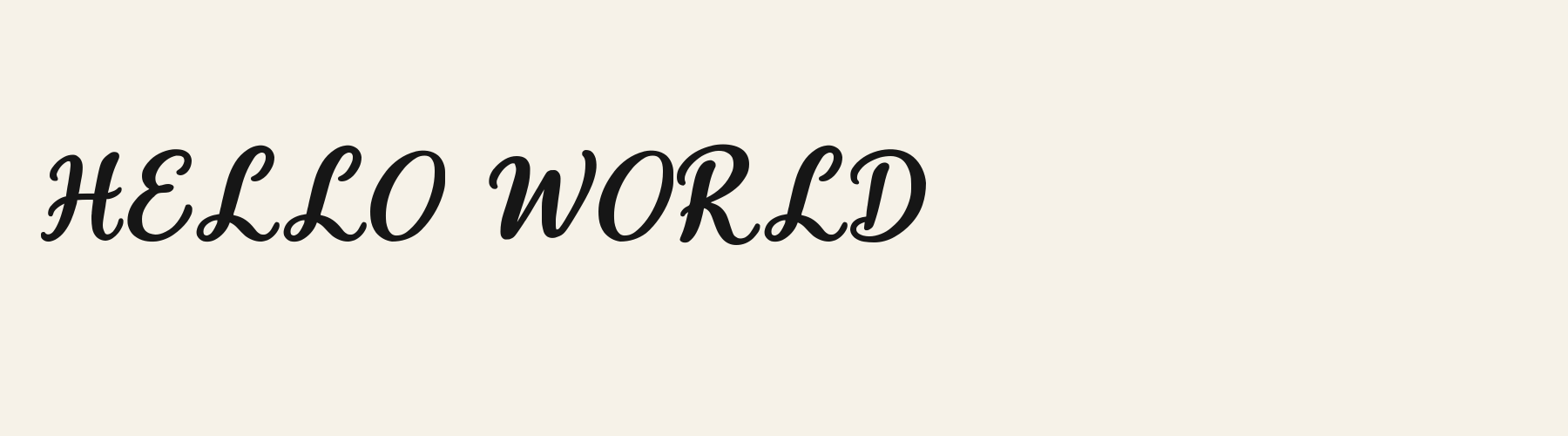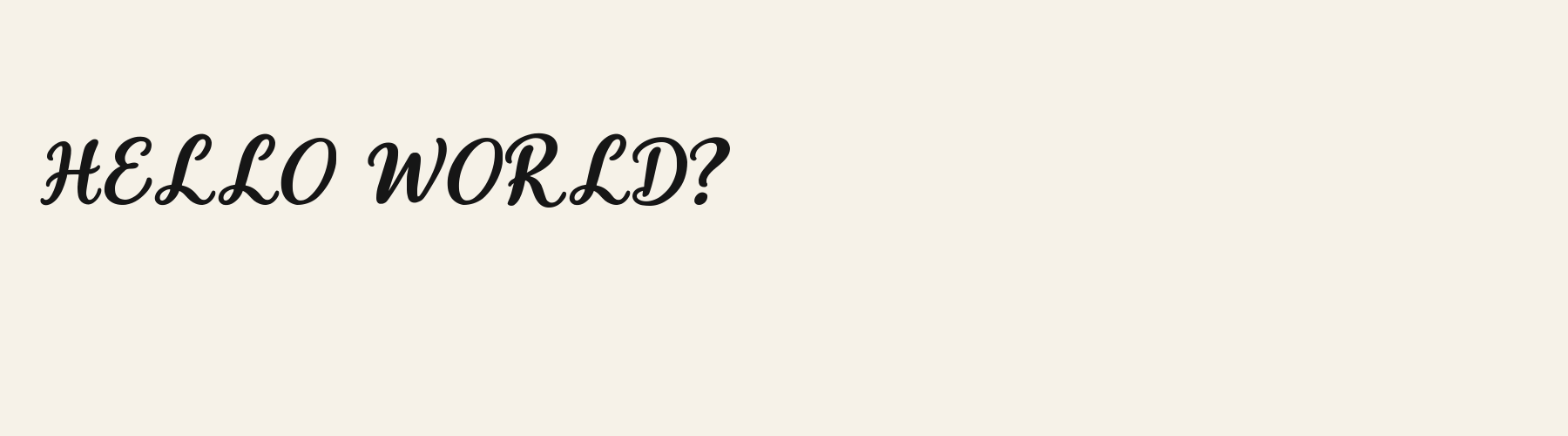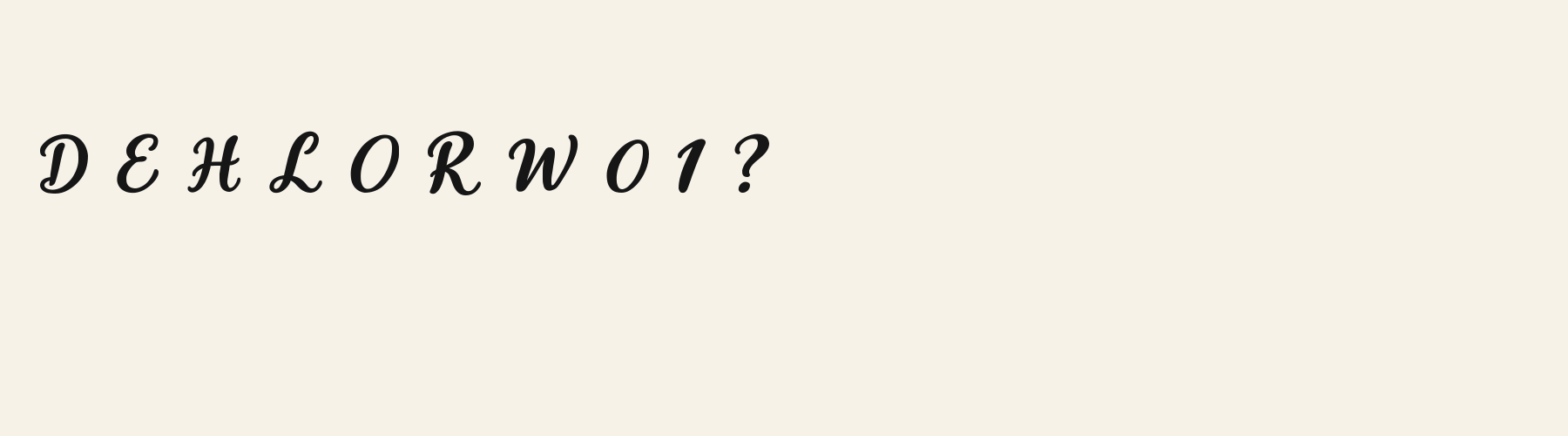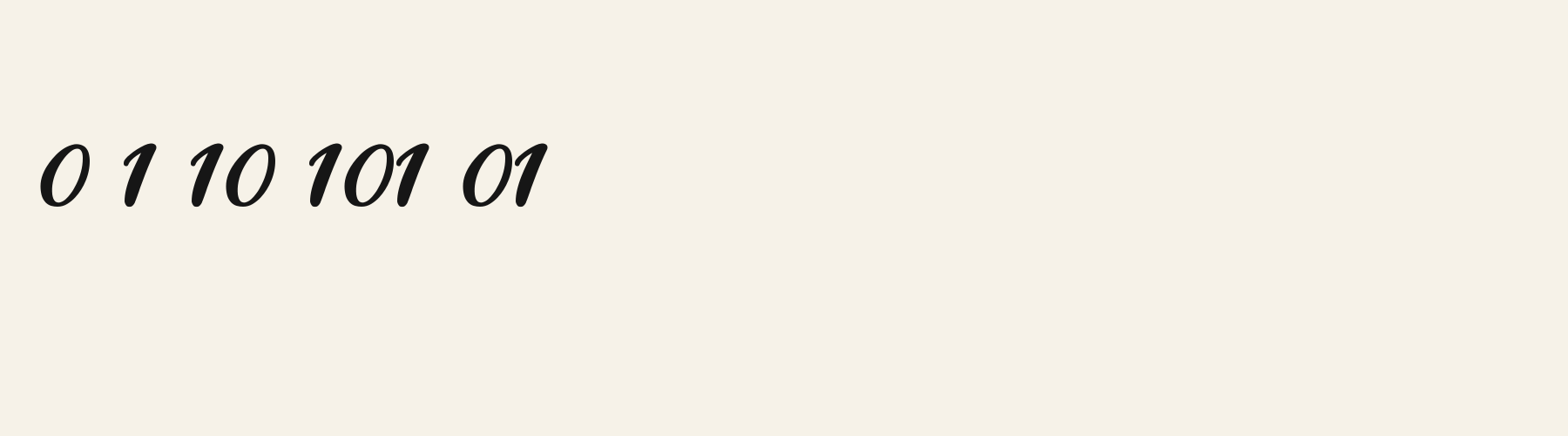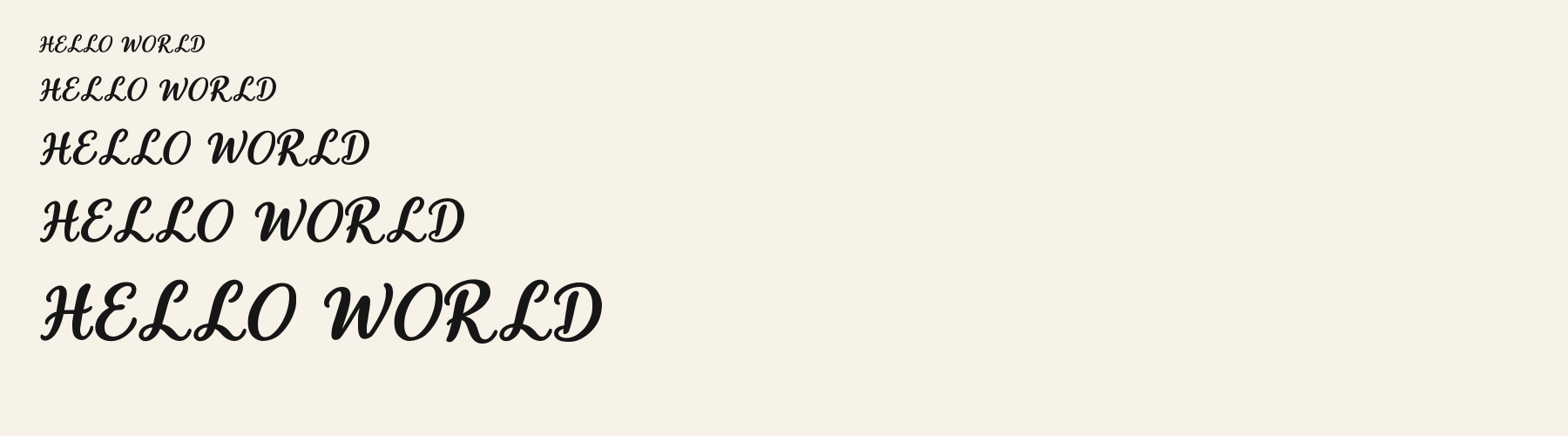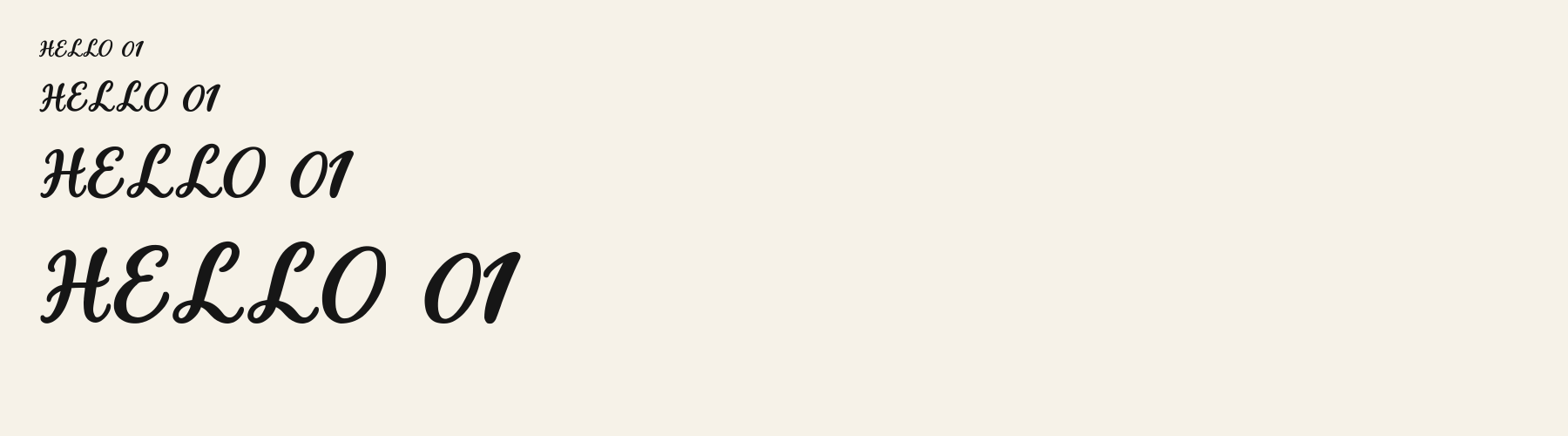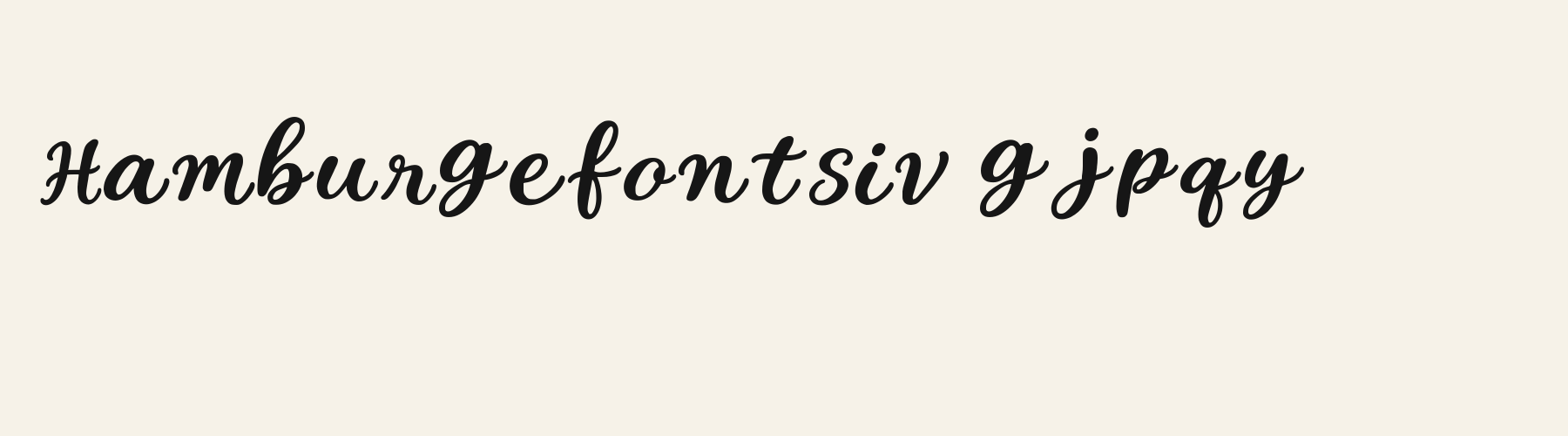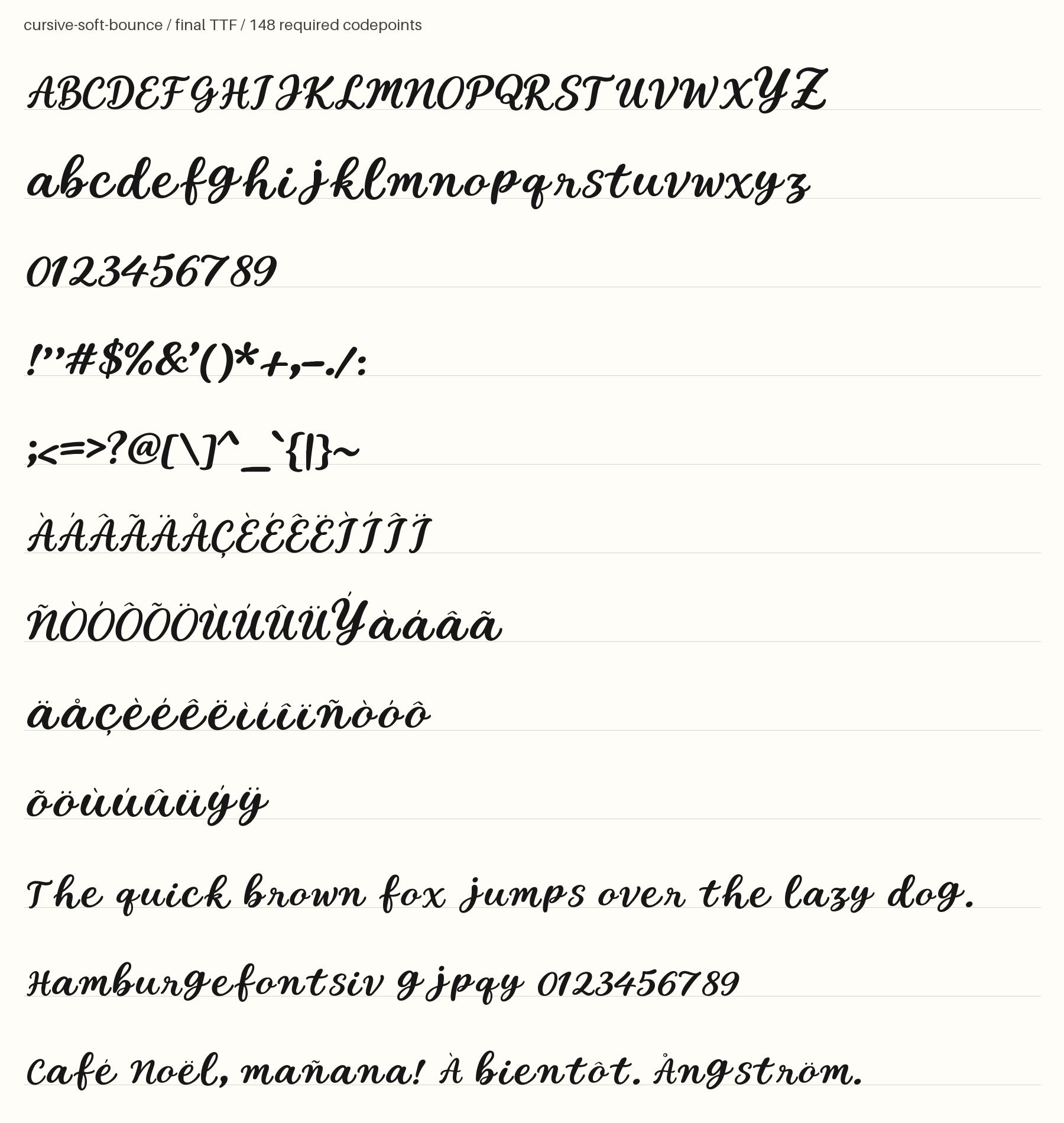
Cursive Letterpress Slant
Script · 1 style · 148 glyphs · Version 0.1.0
Cursive Soft Bounce is an invitations and friendly personal notes. Rounded medium brush strokes with modest pressure contrast. Best for invitations and friendly personal notes.
Includes all 95 printable Basic Latin characters and 148 glyphs in total.
Verified language coverage: English (Basic Latin)